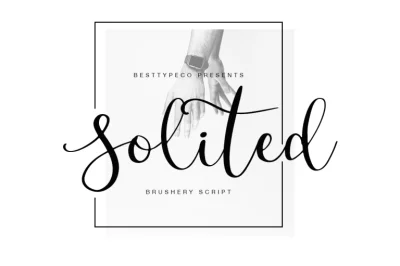
Solited Font
Solited Font is perfect for minimalist brand identities, solitary retreat materials, meditation center signage, quiet workspace branding, peaceful wellness campaigns, serene architectural presentations, contemplative book covers, and tranquil lifestyle projects that require isolated, peaceful typography.
This font is exciting because it captures the profound beauty and centered strength of solitude, with letterforms that embody the same quiet confidence and inner peace found in moments of self-reflection and mindful isolation. Its serene character reflects the clarity and focus that comes from embracing solitude as a source of personal power and authentic self-discovery, making it ideal for brands seeking to convey tranquility, mindfulness, and genuine inner strength in their communications.
The Solited Font family includes regular and light weights with complete character sets featuring uppercase and lowercase letters, contemplative numerals, peaceful punctuation, and special symbols. It also includes solitary alternates and decorative elements that enhance the isolated aesthetic and provide additional serenity for meditation applications.
Whether you're creating wellness sanctuary branding or contemplative lifestyle materials, Solited Font brings unmatched tranquility and mindful appeal to every project. The font's peaceful design makes it perfect for brands emphasizing inner peace, mindful living, and authentic solitude appreciation in their communications. Its calm character works beautifully across both digital platforms and traditional print media, from meditation websites to wellness product packaging. This solitude-inspired typeface creates instant emotional connection and peaceful recognition for brands seeking to establish credibility within wellness and mindfulness markets. The carefully crafted letterforms ensure excellent readability while conveying the peace and clarity that defines genuine solitary communication, making your message feel calming, centered, and authentically connected to mindful excellence and peaceful solitude wisdom.